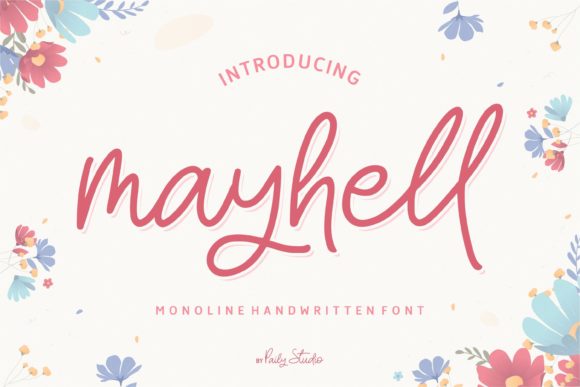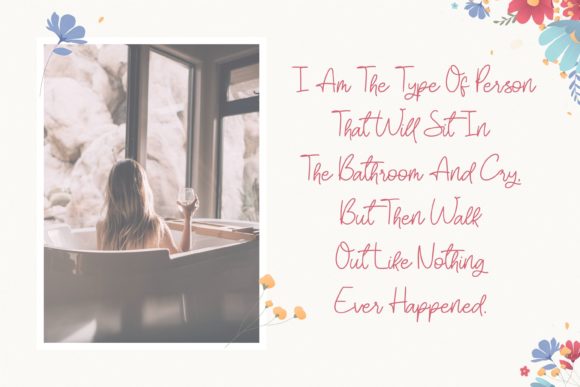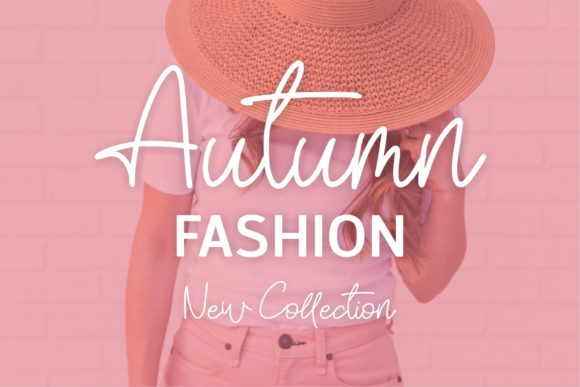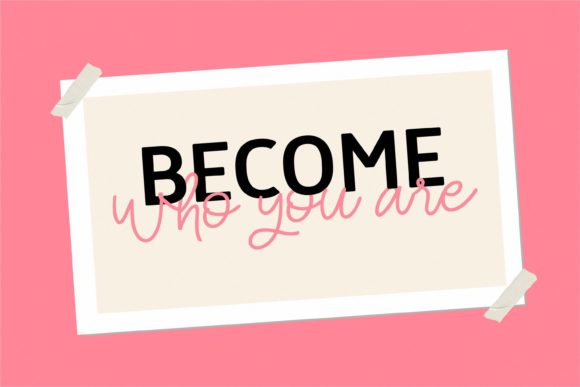
About Mayhell Font
Mayhell is a sweet, jolly and delicate script font. It is the best choice for creating eye catching logos, branding and quotes. Every letter has a unique and beautiful touch, which will make your design come alive!